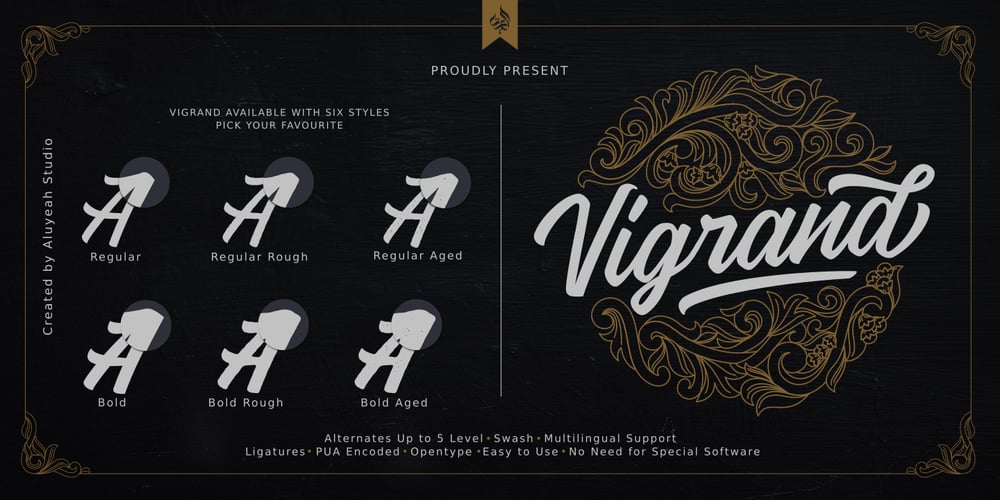
Vigrand Font Family was designed by Linggar Sundoro and published by Aluyeah Studio. Vigrand contains 6 styles and family package options. Vigrand is a stunning handwritten font with a vintage feel. Vigrand give you luxurious vibes as much as casual vibes, elegant but simple, strong but light.Use Vigrand to add a unique charm to any design project. With 6 stylistic, regular, regular rough, regular aged, bold, bold rough, and bold aged. Up to 5 level alternates. Opentype, swash, ligatures, multilingual support, ( Western European characters and works with following languages: English, French, Italian, Portuguese, German, Swedish, Norweigen, Danish, Dutch, Finnish, Indonesian, Filipino, Malay. ) PUA encoded, easy to use. No need for special software.Extras : Editable logo and Floral Ornament. It’s very well suited for logotypes, wedding invitations, product labels, fashion and cloting product, and other type design.